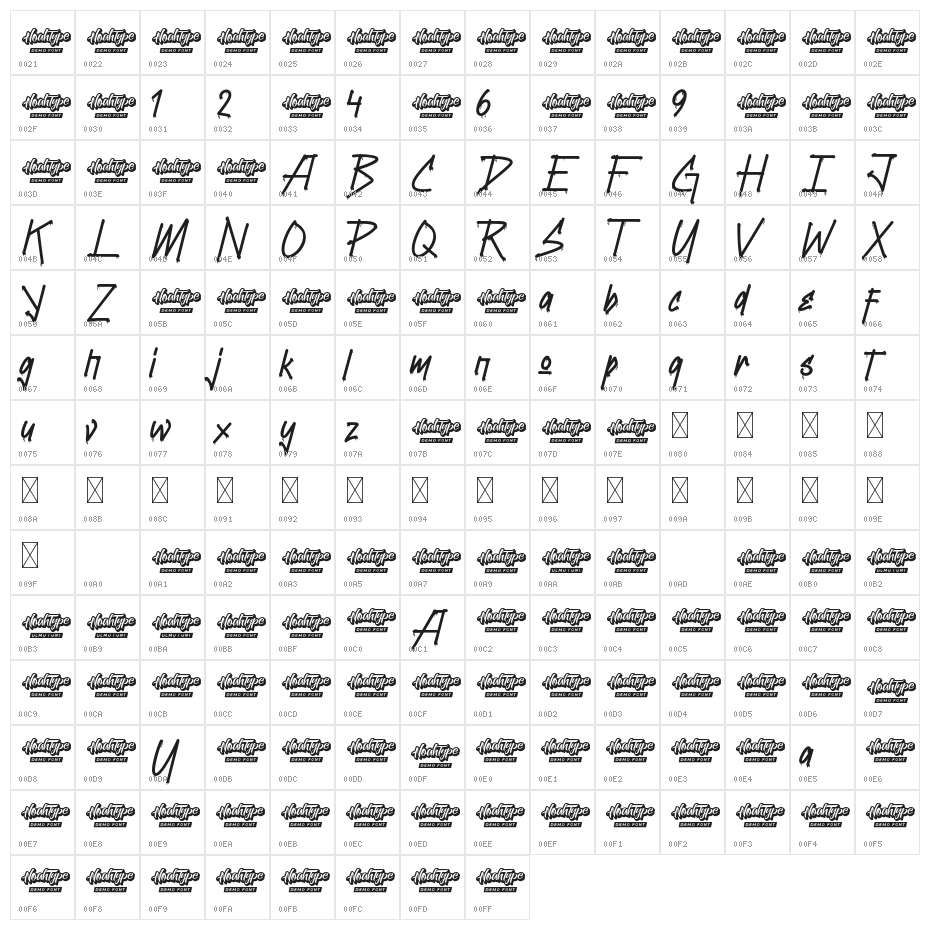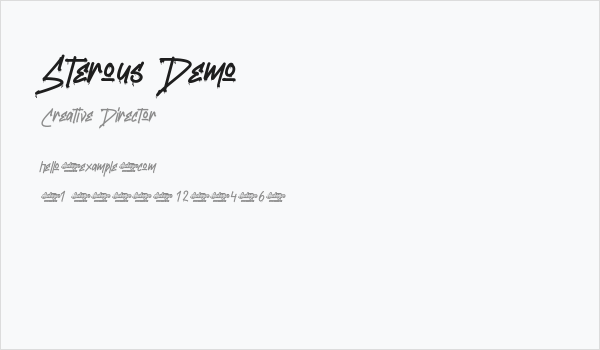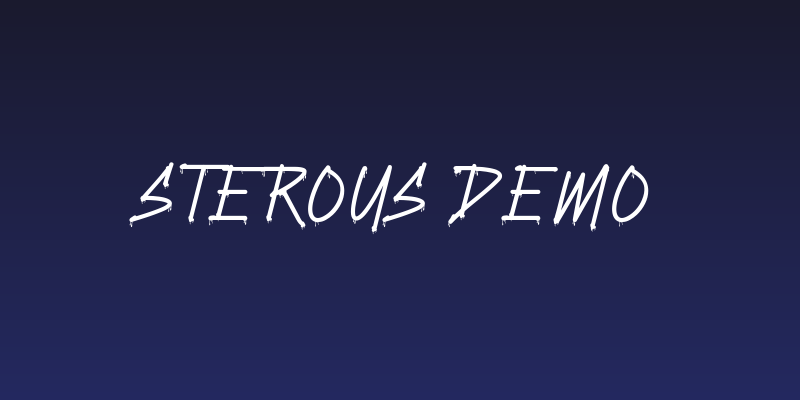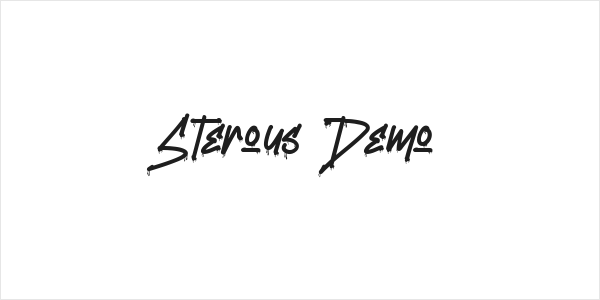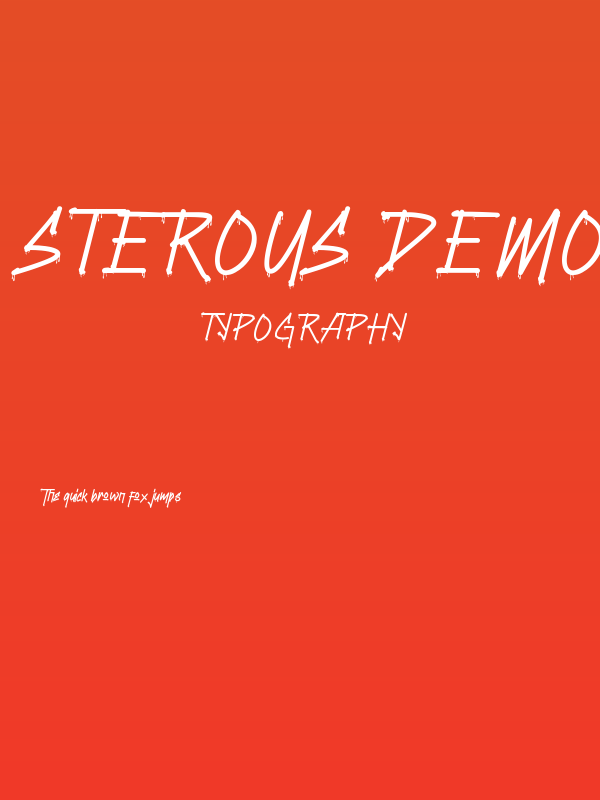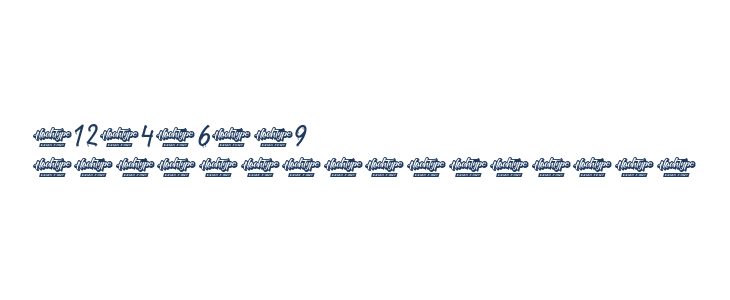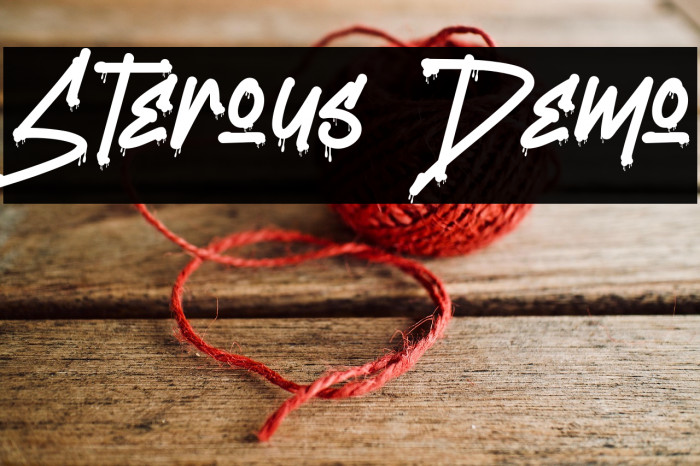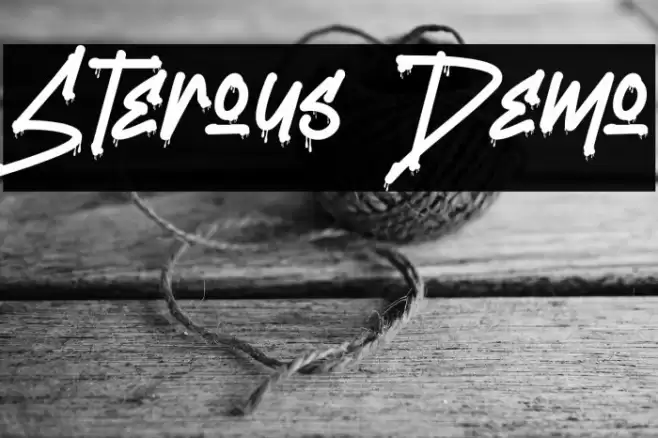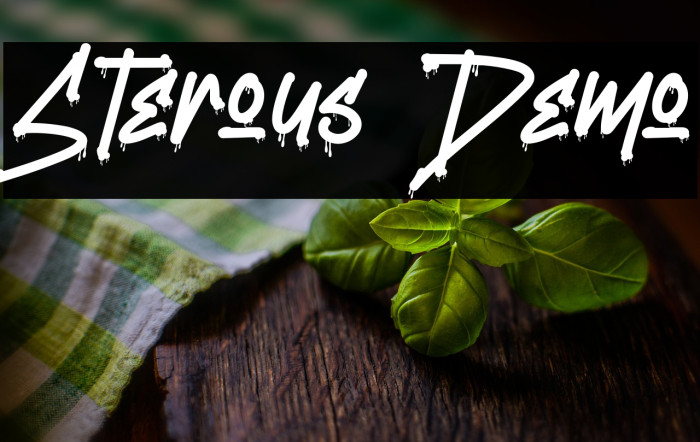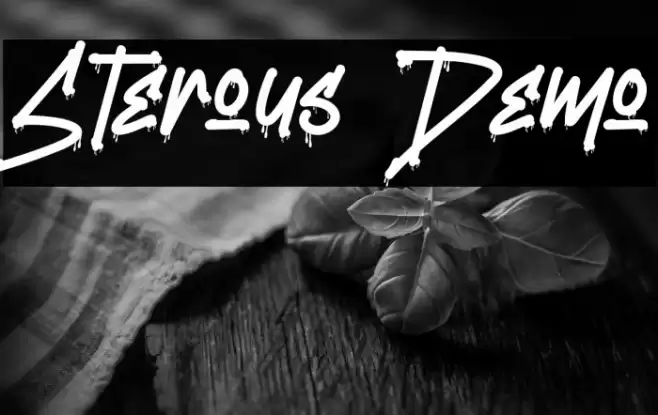
Sterous Demo Font
Sterous Demo Description
This font features a dynamic and edgy style, characterized by its sharp, angular strokes and a slightly distressed appearance. The uppercase letters are tall and narrow, with a unique flair that gives them a handwritten feel. The lowercase letters maintain the same edgy aesthetic, with some letters featuring distinctive loops and curves. The numerals are bold and consistent with the overall style, making them stand out. Special characters are creatively designed, adding to the font's unique personality. This font's energetic and rebellious vibe makes it suitable for projects that require a bold statement.
| Width | Condensed |
| Overall Style | Modern, Edgy |
| Proposed Projects | Ideal for music album covers, event posters, streetwear branding, and edgy graphic design projects. |